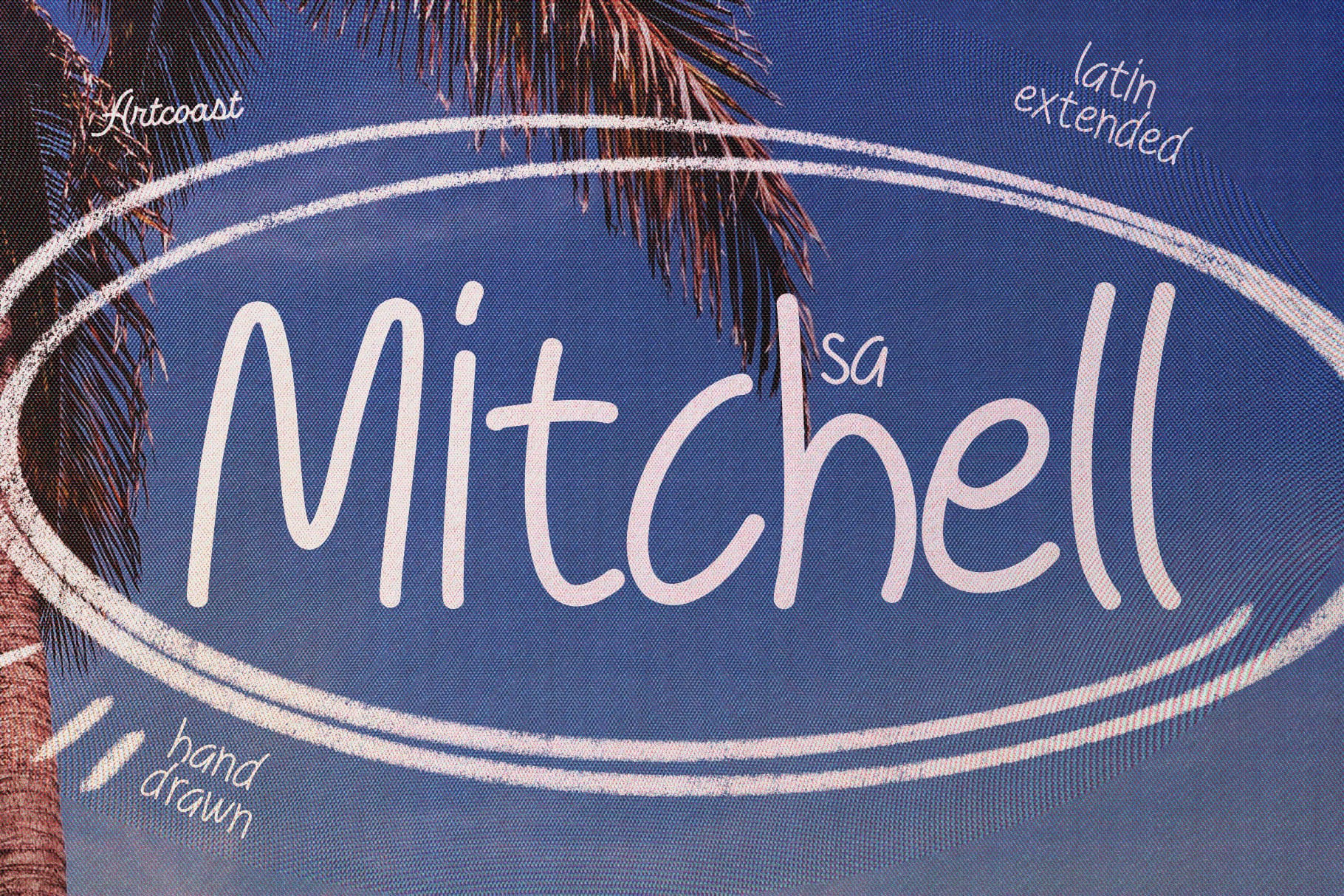
SA Mitchell Handwritten Script Font
SA Mitchell is a casual handwritten script font with slim monoline strokes, playful letterforms, and an authentic hand-drawn rhythm. Clear at display sizes and full of personality, it works beautifully for logos, packaging, menus, editorial graphics, quotes, invitations, social posts, and relaxed lifestyle branding.
SA Mitchell Regular
Uppercase and lowercase letters
Latin Extended multilingual support
Logos and signature-style branding
Café, restaurant, and packaging design
Invitations, cards, and personal stationery
Quotes, headlines, and social media graphics